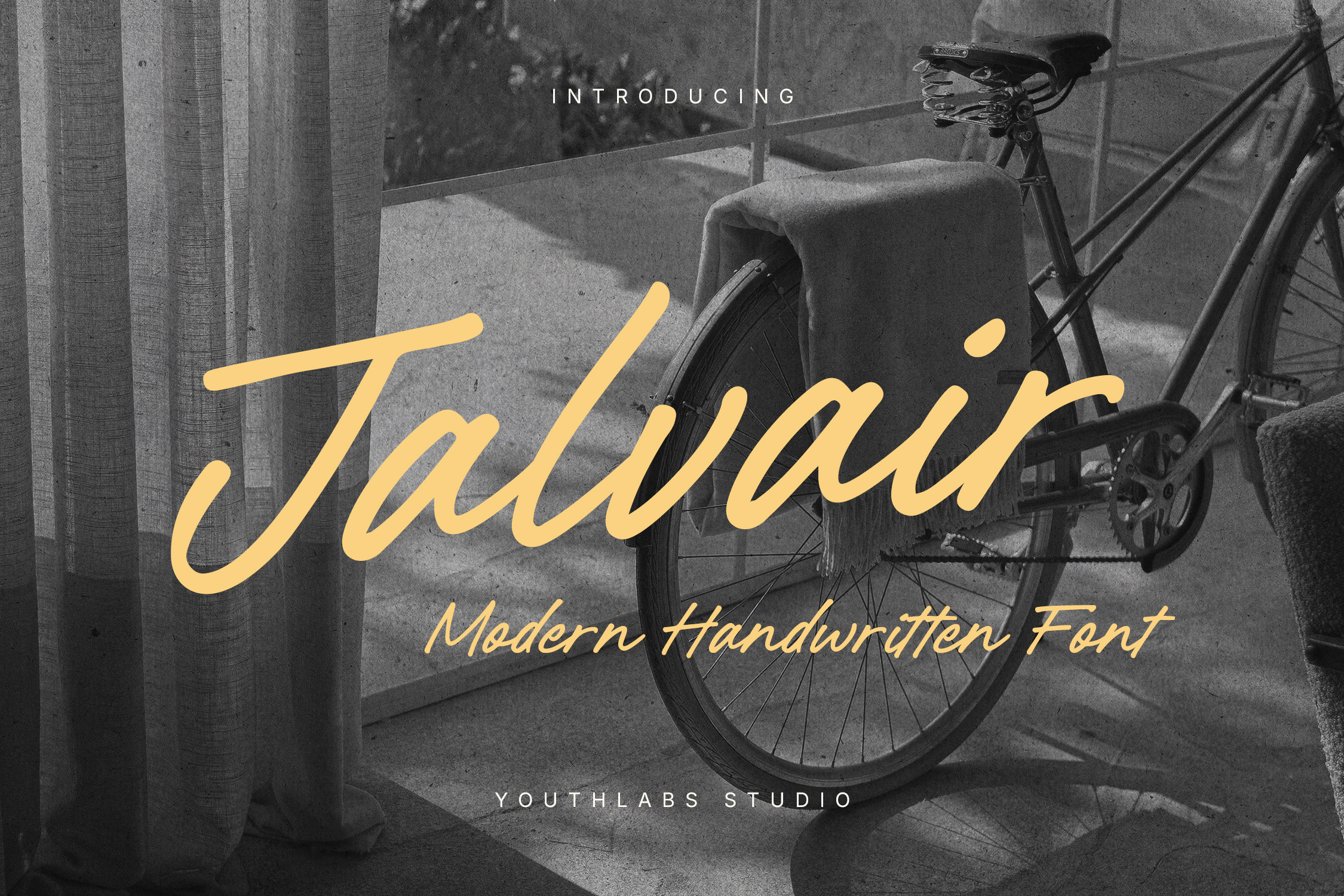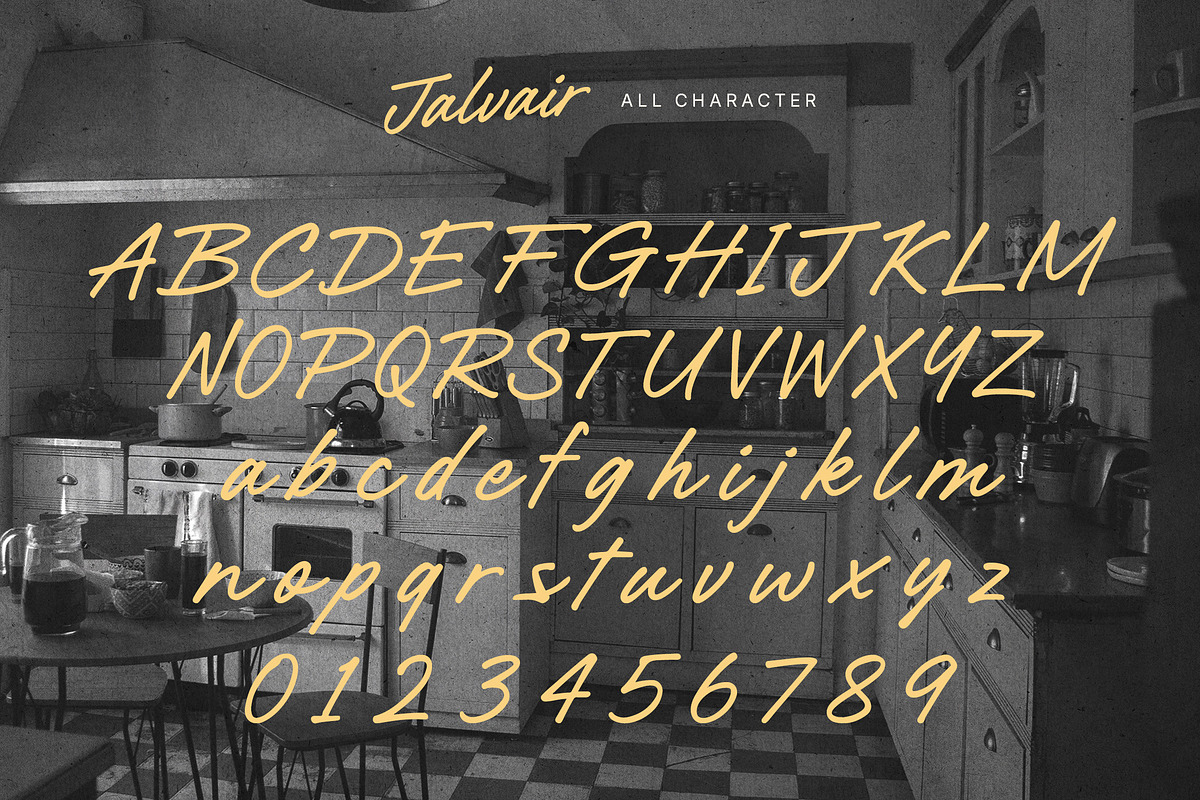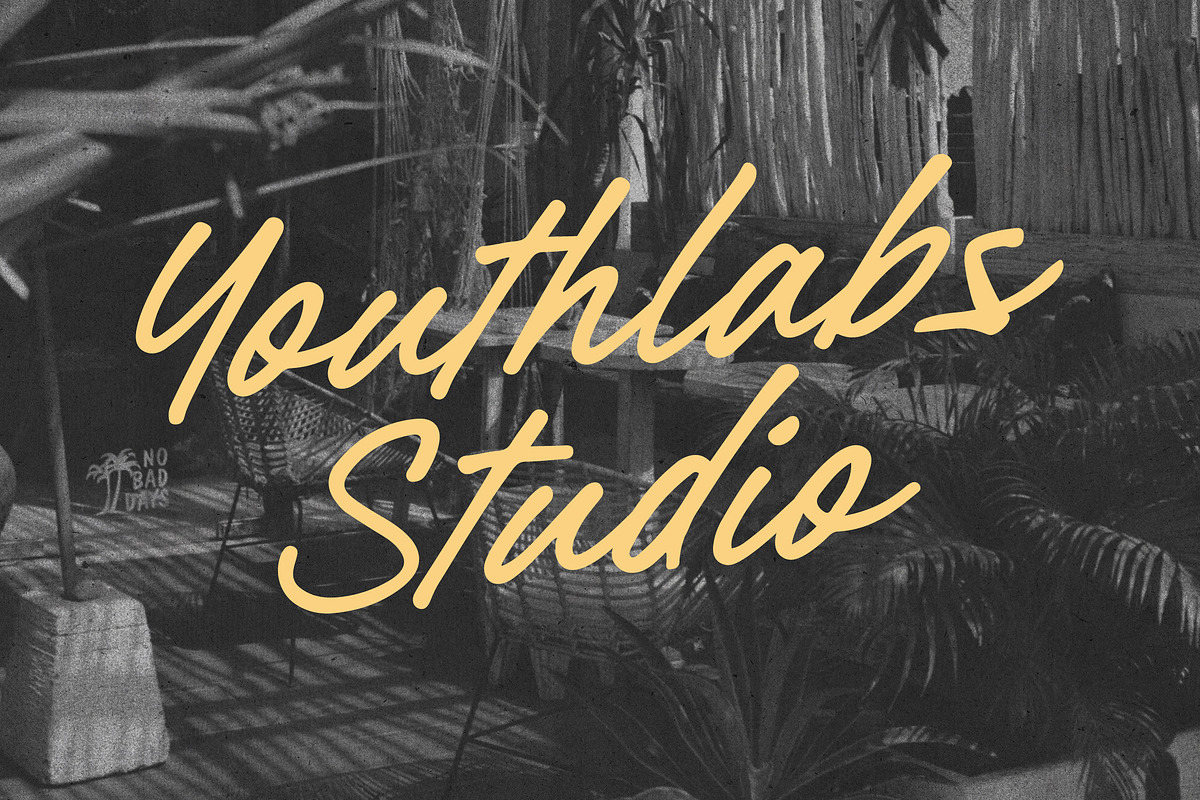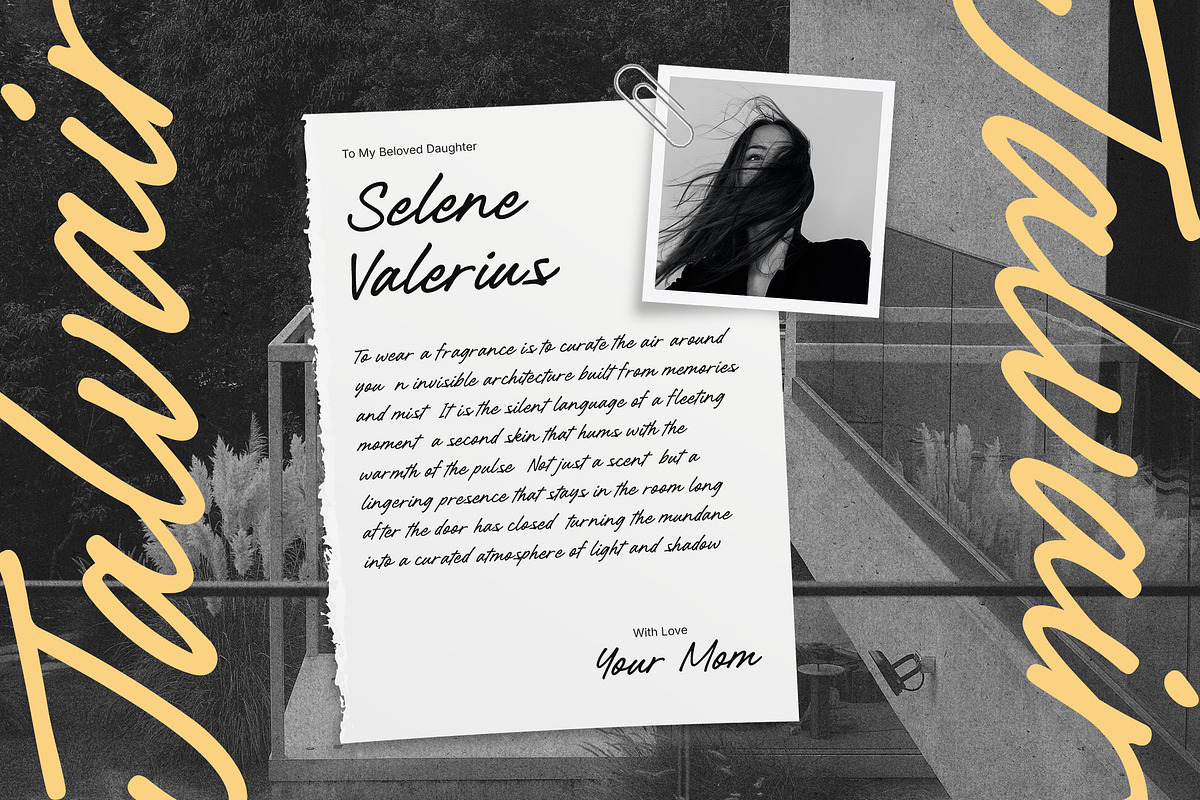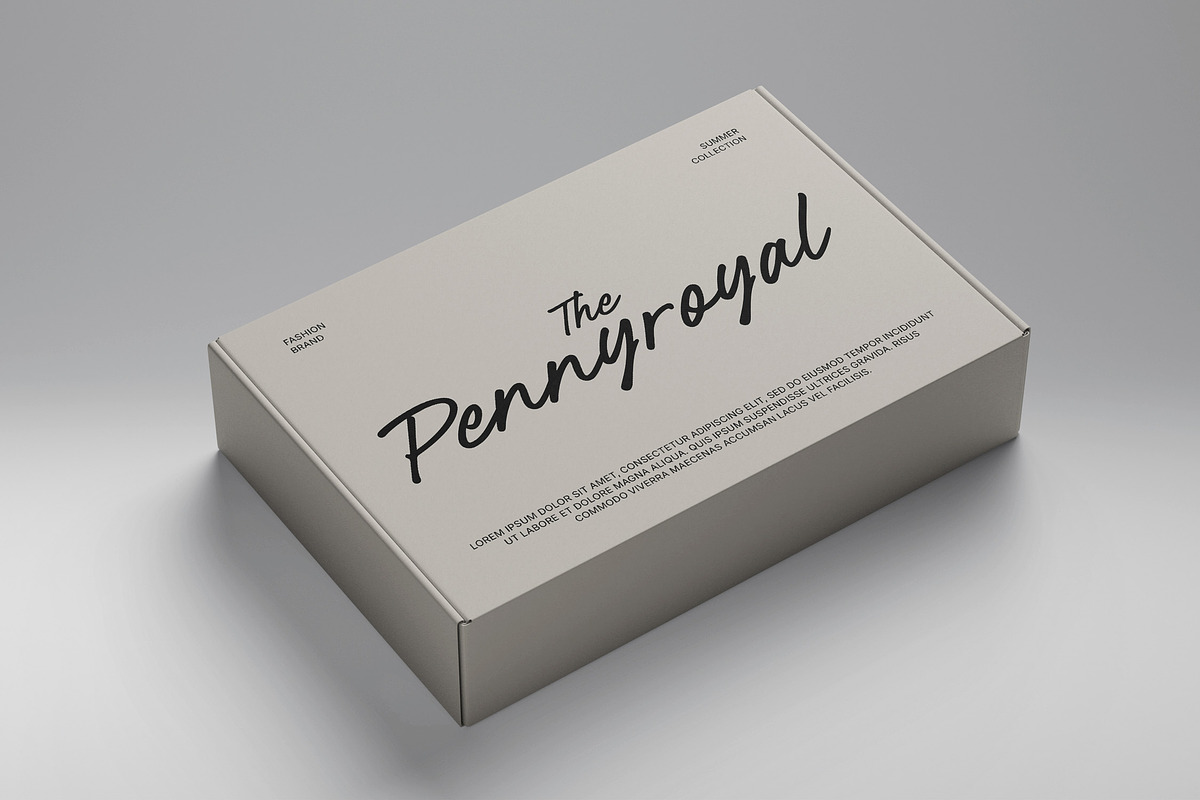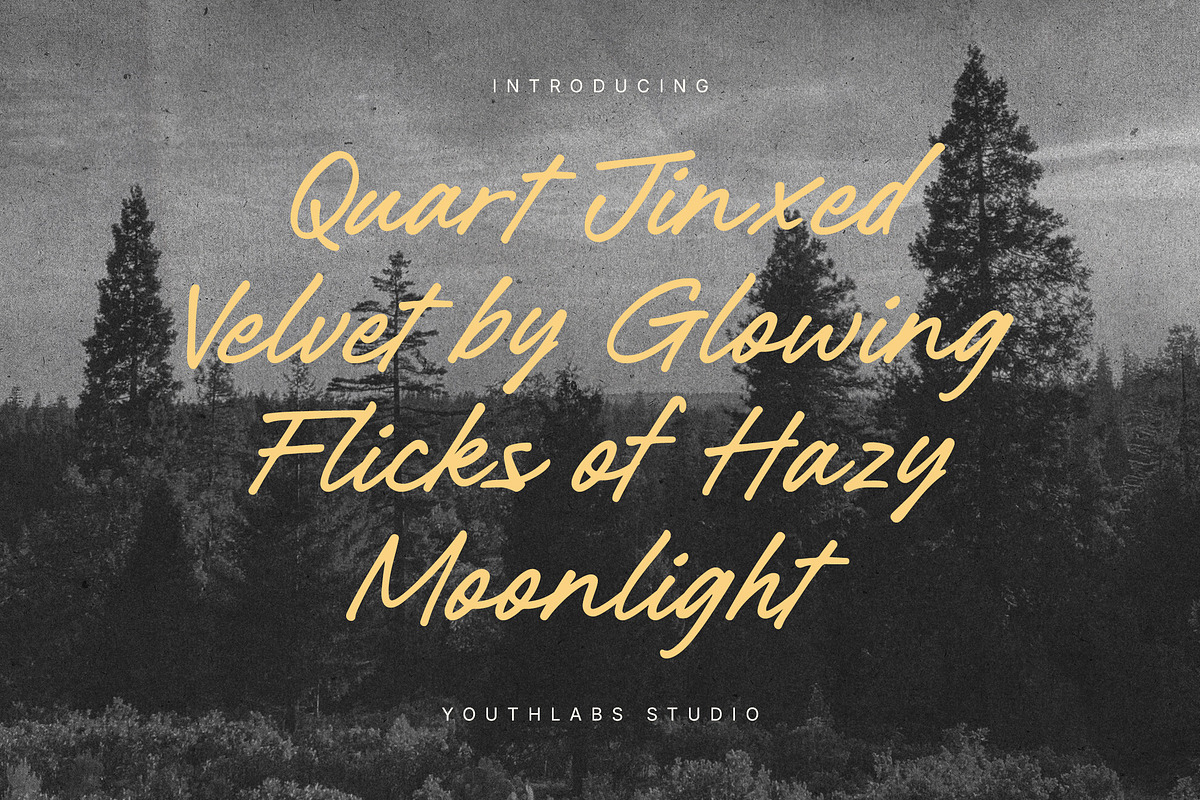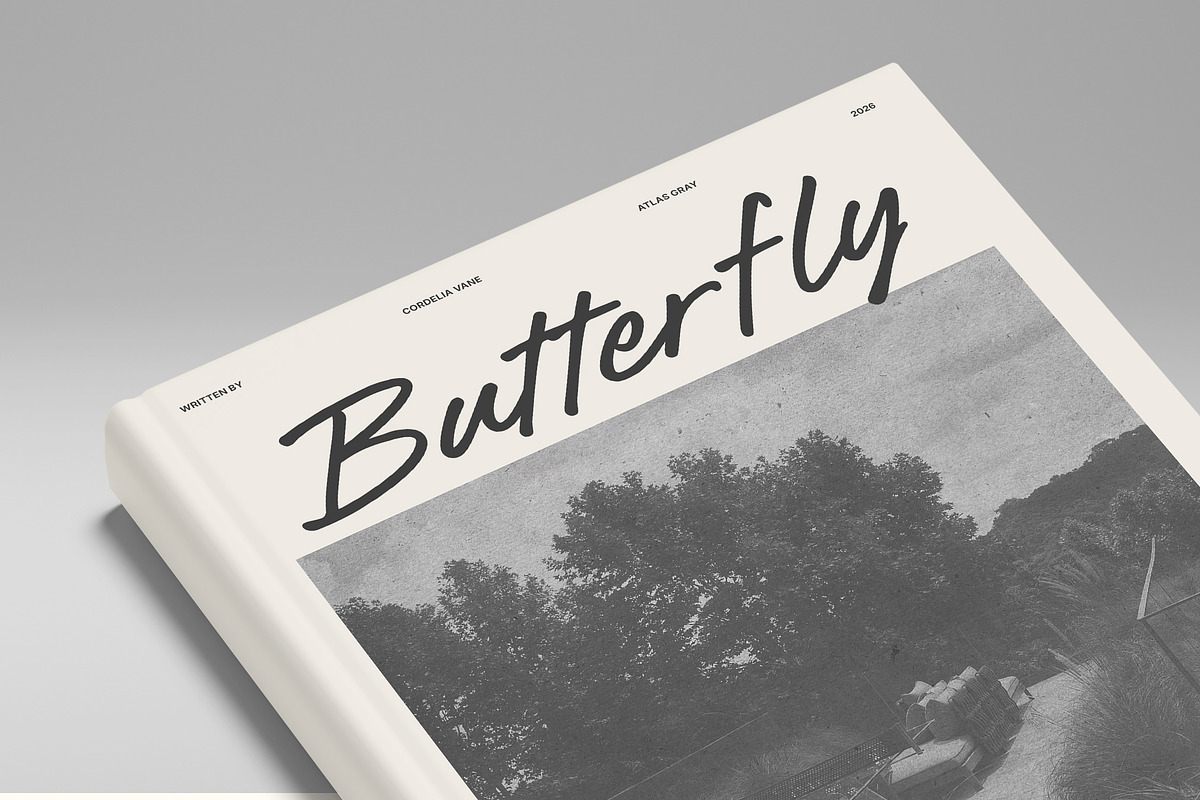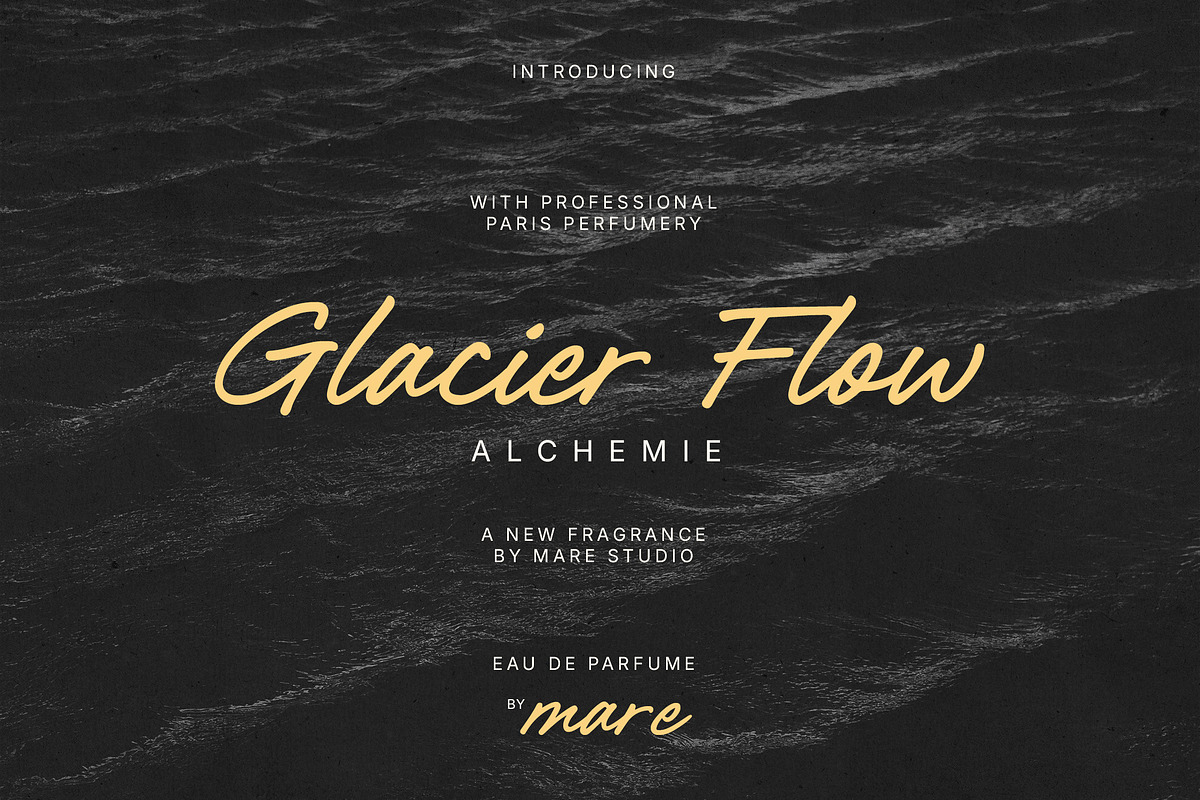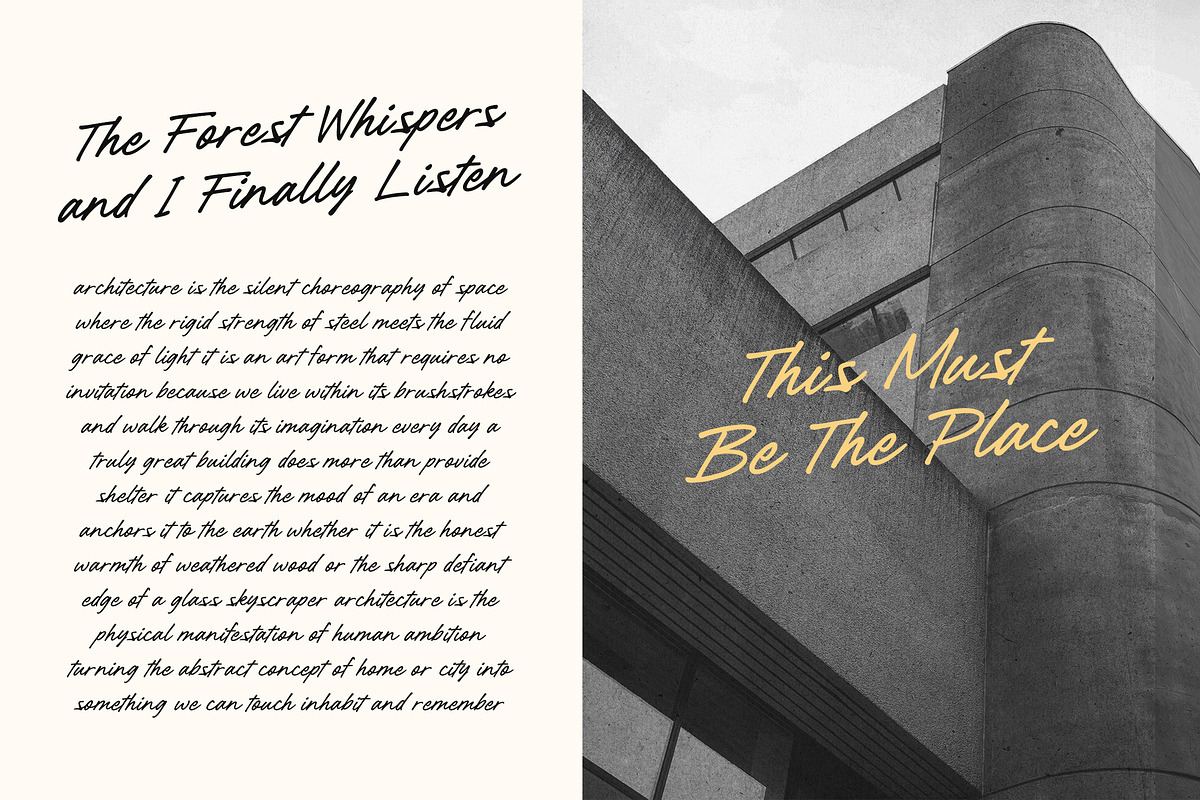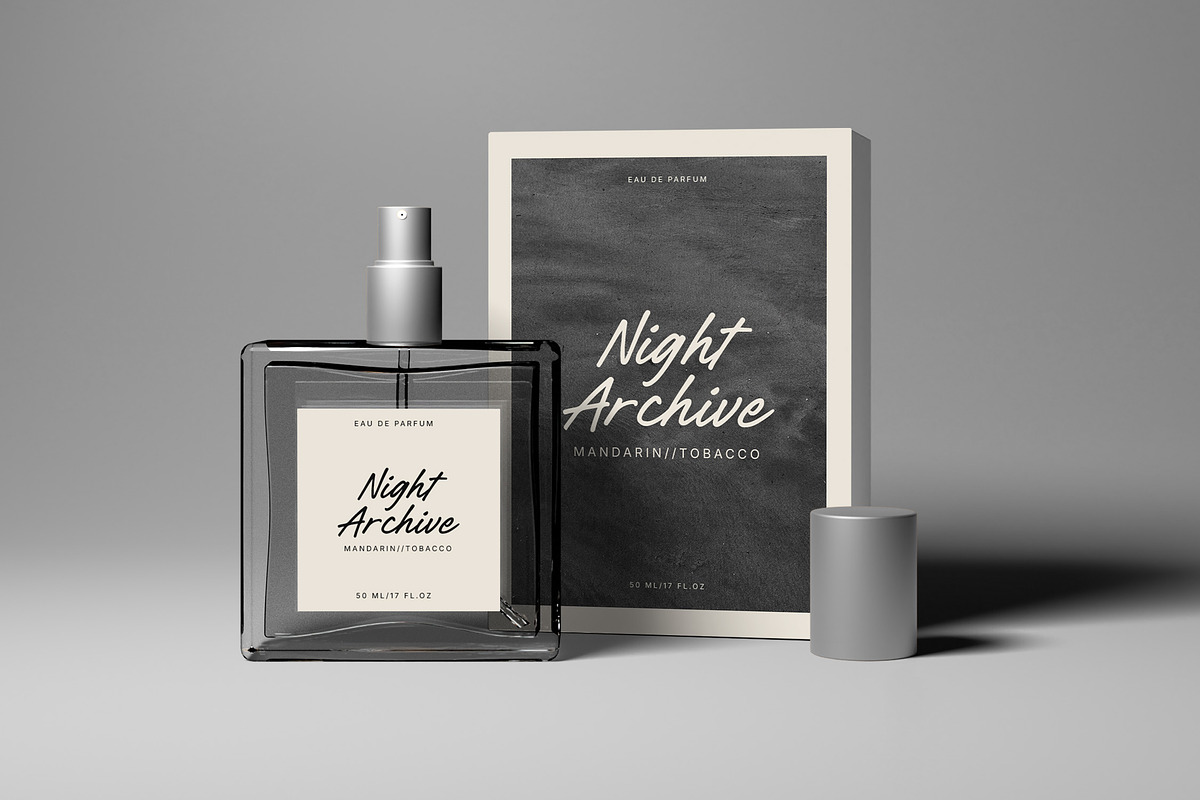
Jalvair - Modern Handwritten Font
Jalvair is a modern handwritten font that captures the effortless charm of everyday penmanship. This typeface balances thick, casual strokes with a rhythmic, organic flow that feels instantly familiar and warm. Unlike rigid scripts, Jalvair offers a relaxed aesthetic that is perfect for storytelling and human-centric design. Whether you are creating evocative editorial layouts, heartfelt social media content, vintage-inspired labels, or modern lifestyle branding, Jalvair provides a cozy yet contemporary touch that makes your message feel personal and approachable.
✨ Key Features
- Organic Handwritten Texture
- Modern Casual Aesthetic
- Fluid Connecting Strokes
- Balanced Visual Weight
- Human-Centric Design Feel
- Versatile Display Legibility